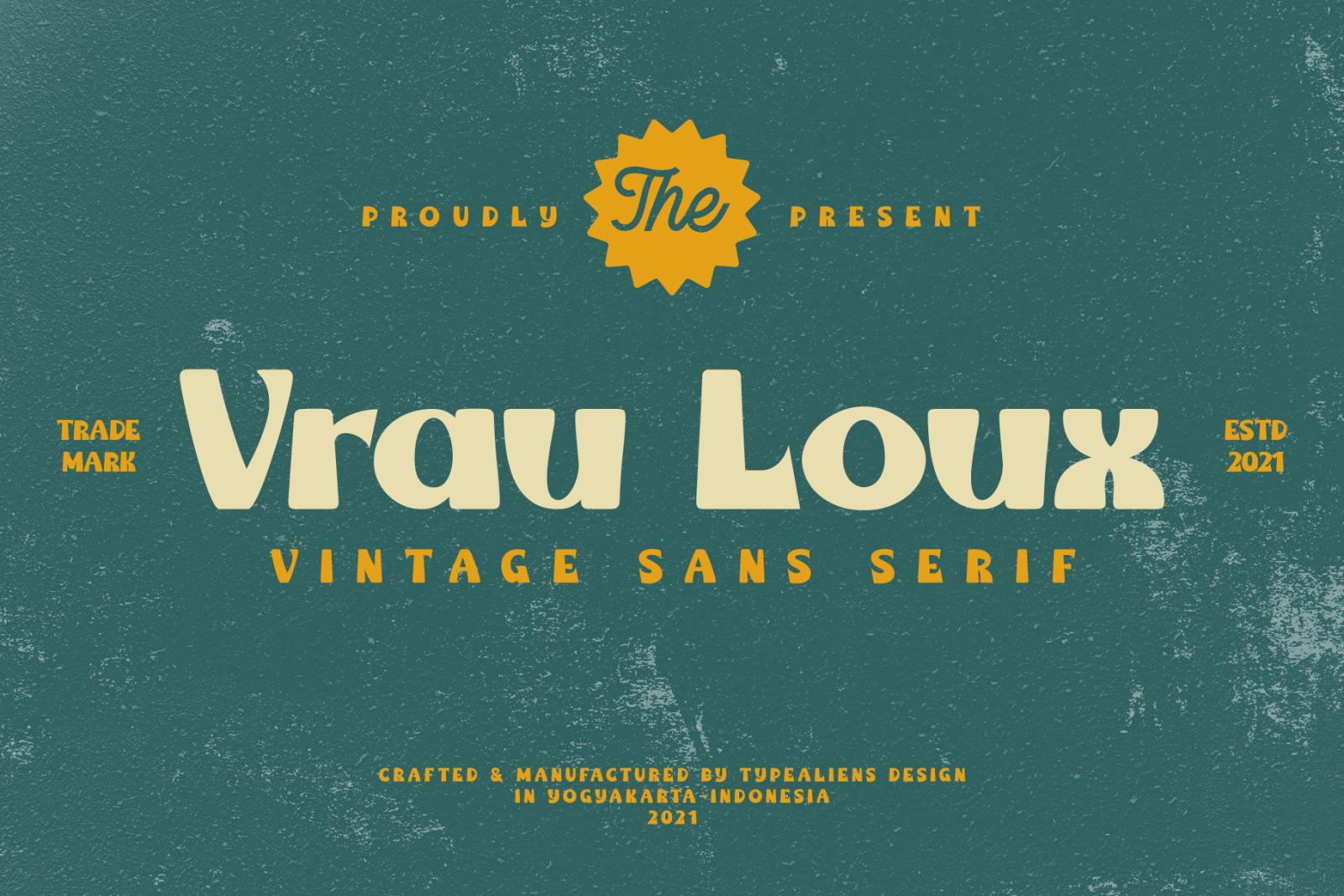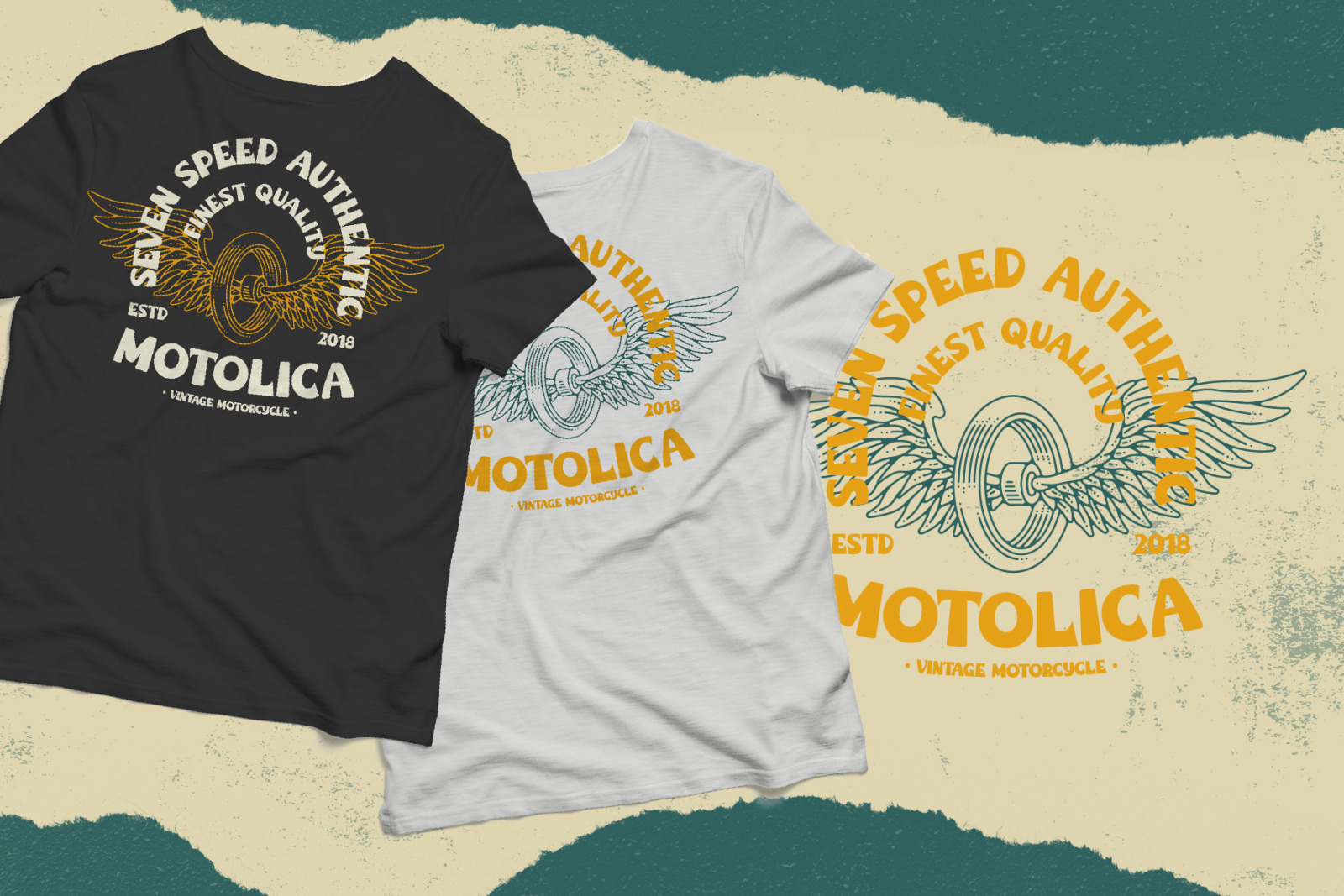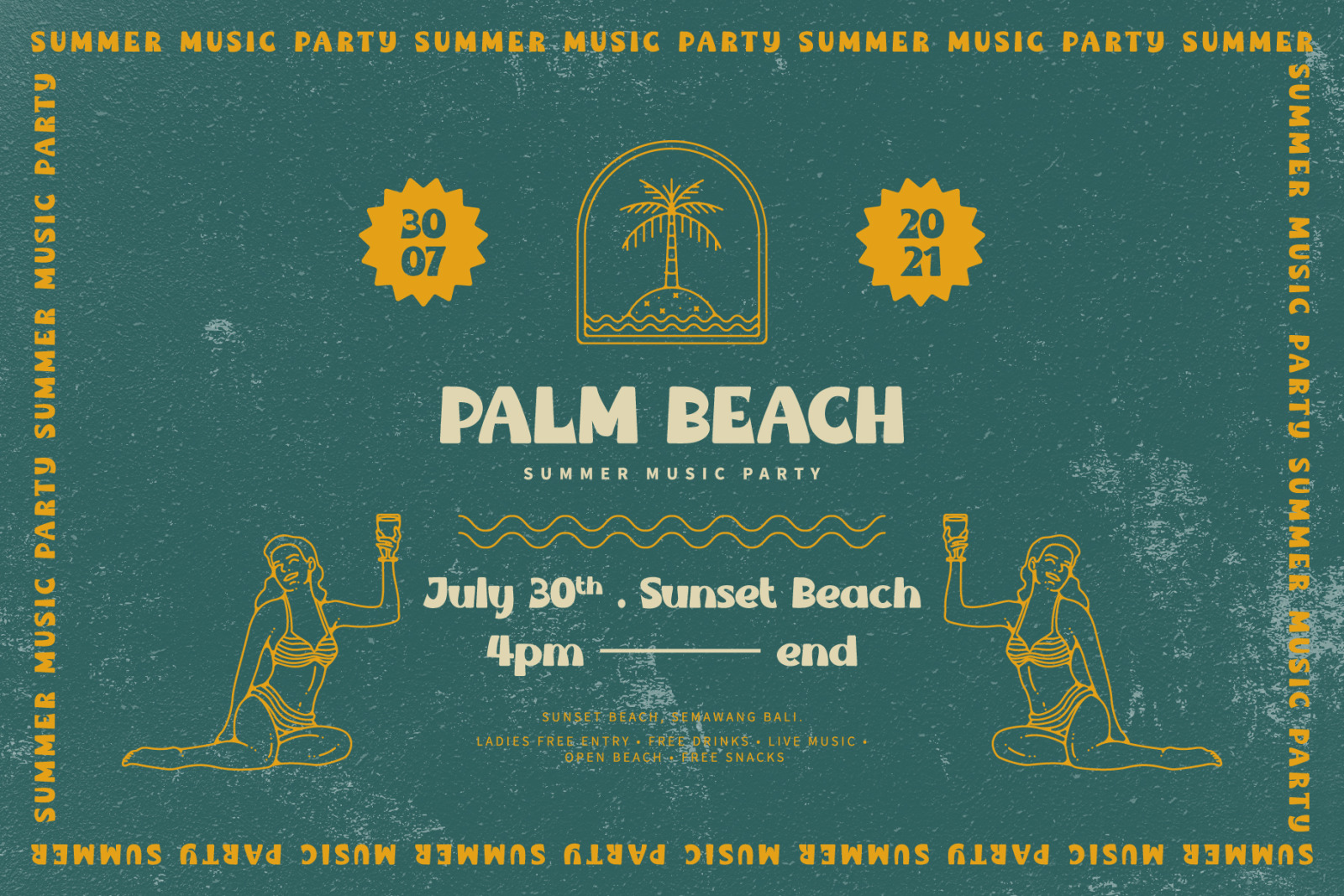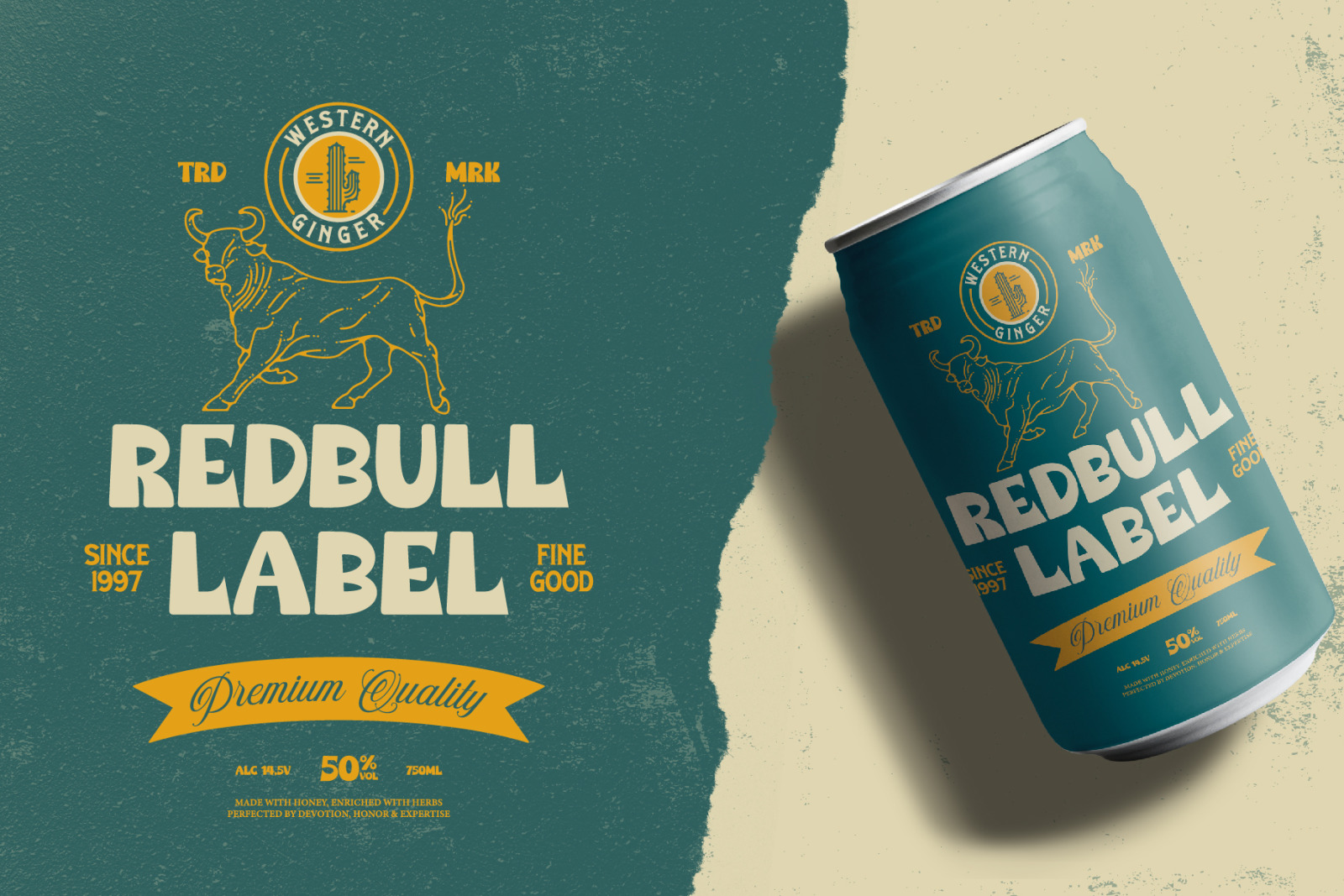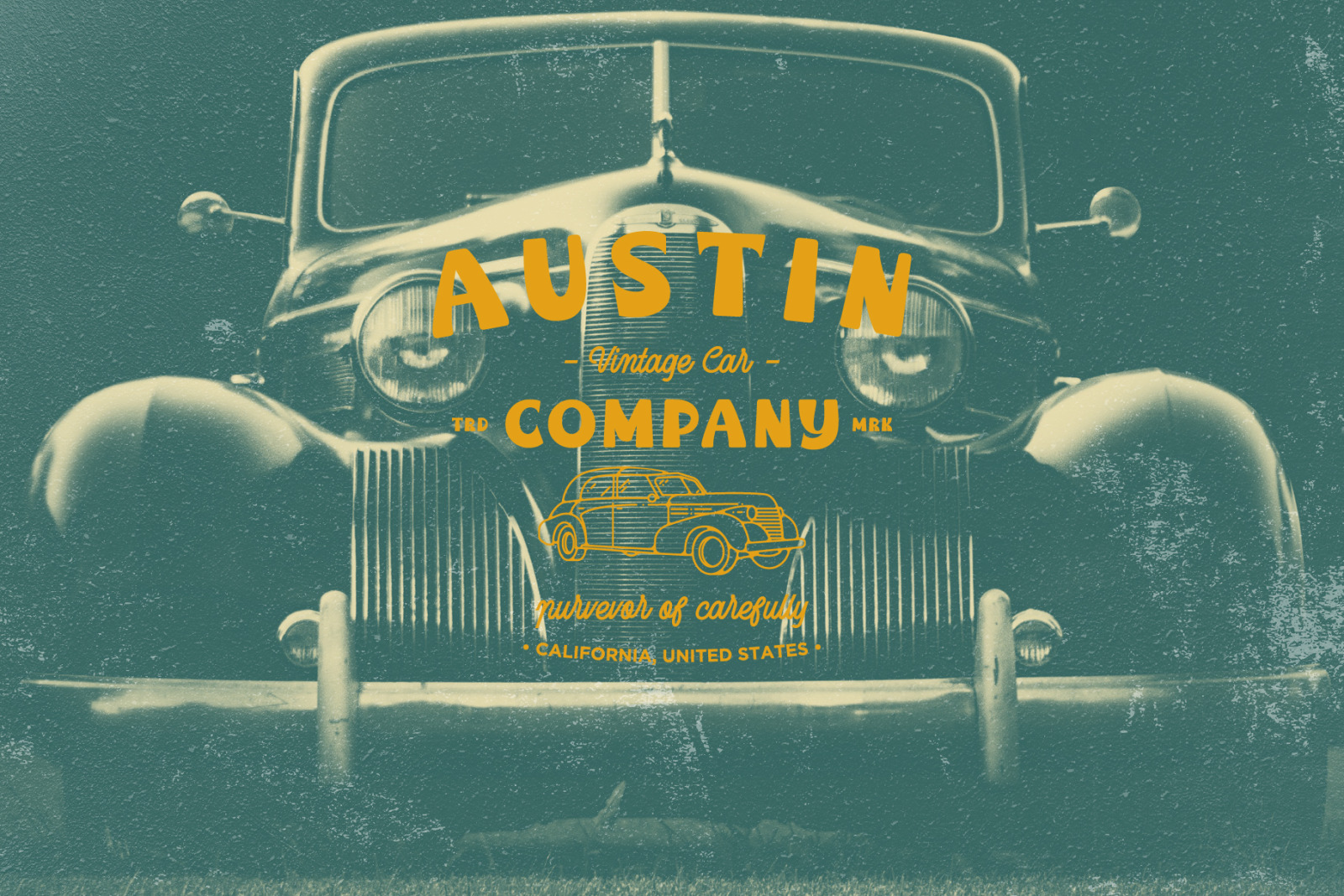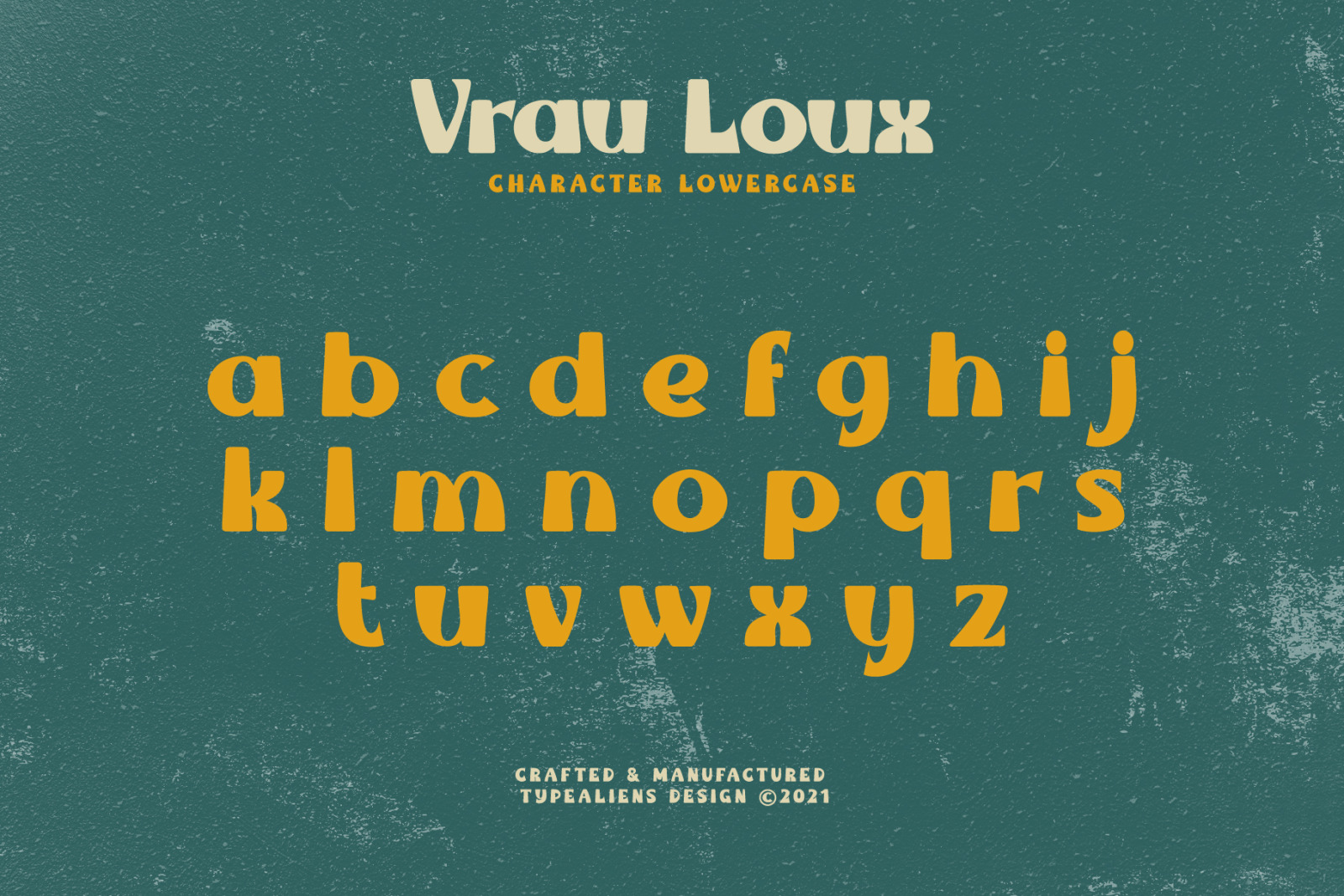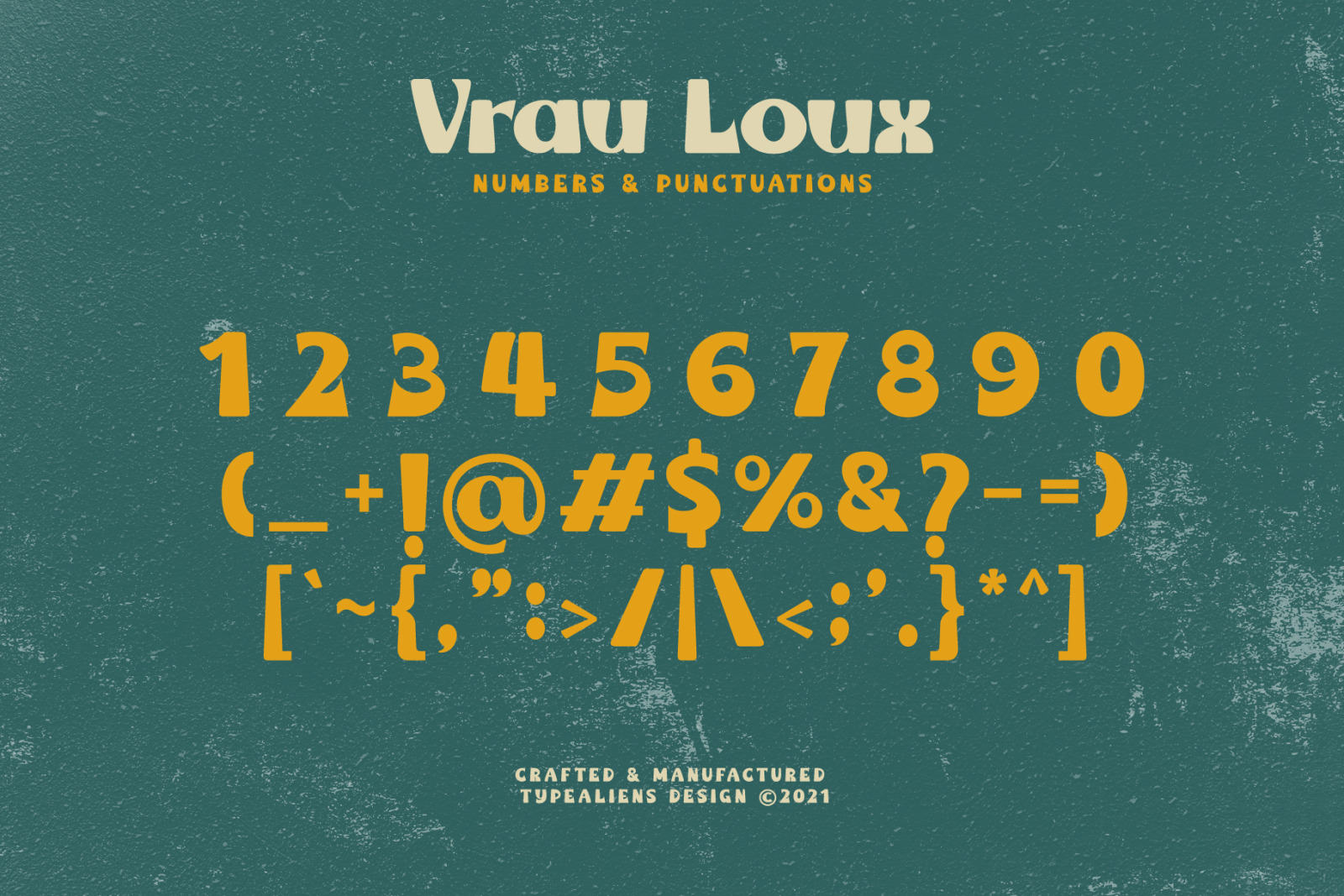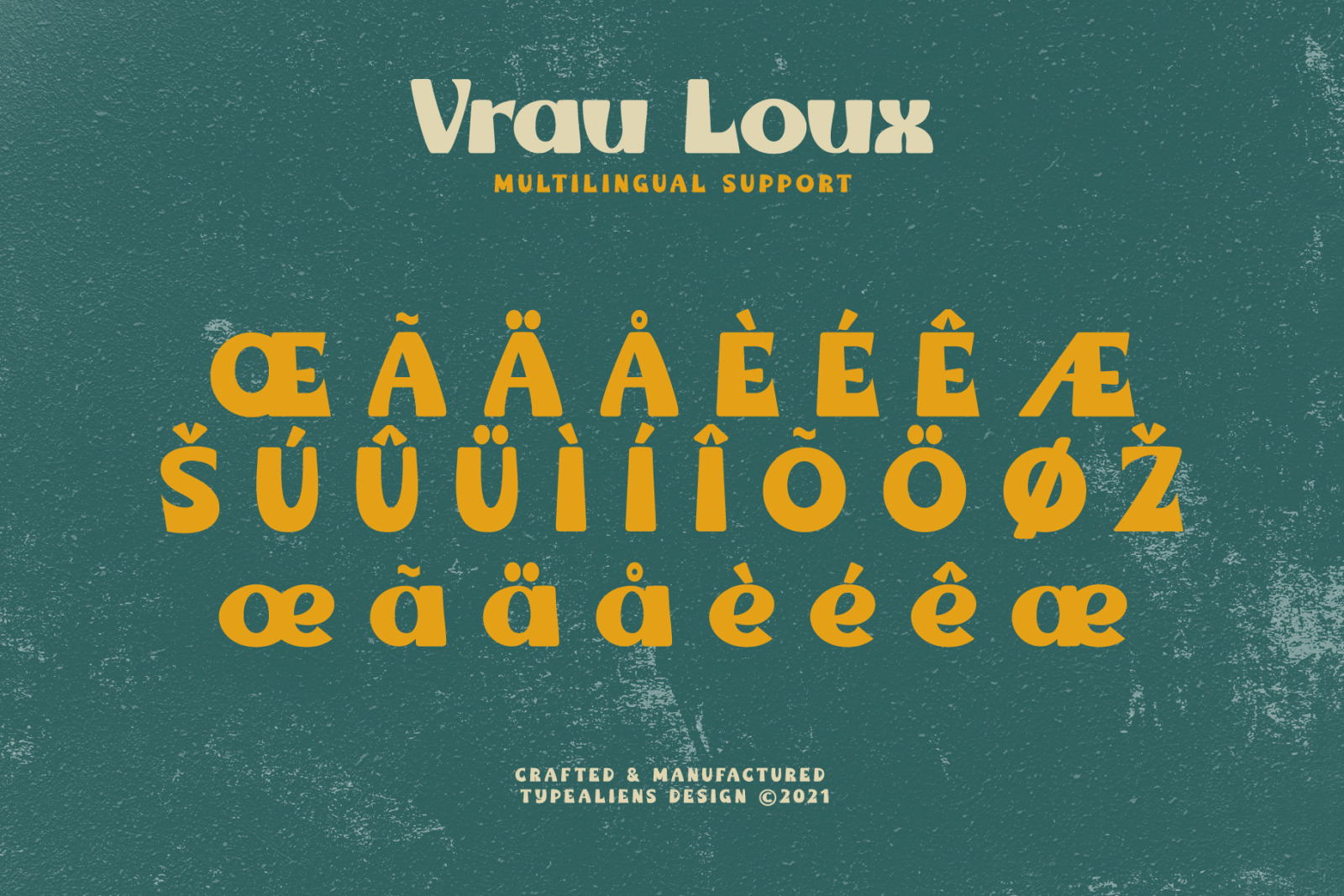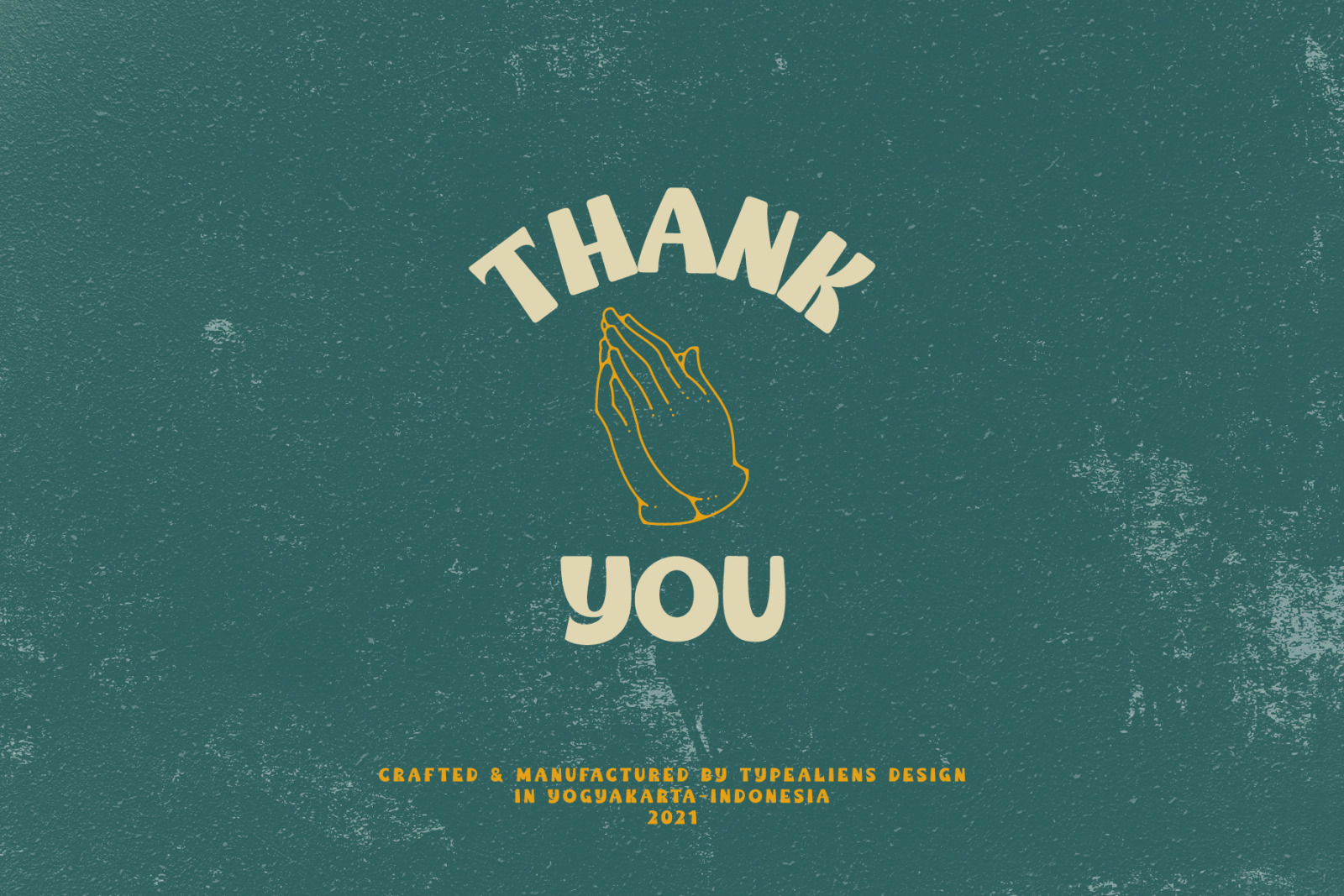
Vrau Loux Font
VRAU LOUX is a display font whose basic form is a sans-serif font with rounded corners. Vrau Loux can support both vintage and modern designs and is suitable for logo designs, badges, t-shirts. labels etc.